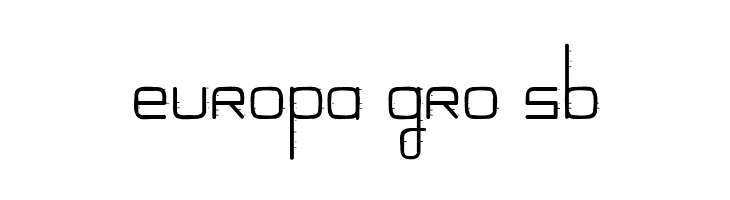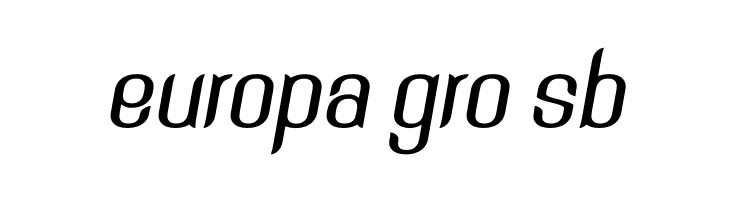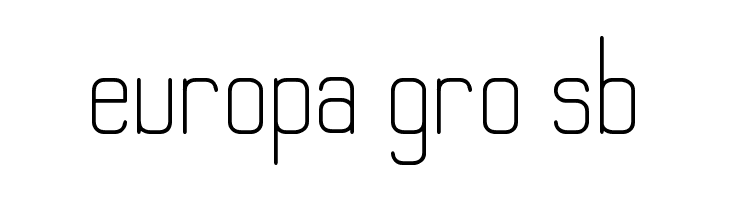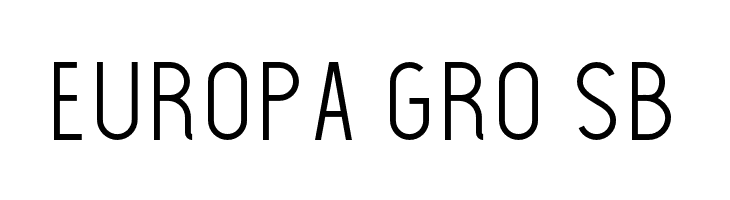
( Pisto Casero - Gilberto Moya Perona - www.pistocasero.com )
A geometric, minimalist font with a wireframe design and uniform line weight.
( Qkila - Quentin Aquila - www.creativefabrica.com/designer/qkila/ )
A futuristic, geometric font with consistent stroke width and uniform character heights.
( Rachel San )
A modern sans-serif font with semi-bold weight and italic style.
( Sengkeo Vangxiengvue - www.facebook.com/vangxiengvue )
A modern, medium-weight italic font with a sleek, condensed design.
( Shara Weber - www.sharasfonts.com )
A sleek, modern sans-serif font with bold weight and clean lines.
( Southype - Rodrigo Gonzalez - www.southype.com )
A modern, geometric sans-serif font with consistent line weights and a minimalist design.
( Studio Dot by dot - Sjoerd Kulsdom - www.dotbydot.nl/fonts )
A modern, ultra-lightweight font with a minimalistic and geometric design.
( Studio Dot by dot - Sjoerd Kulsdom - www.dotbydot.nl/fonts )
A modern, decorative font with semi-bold weight and looped terminals.
( Sven Pels - www.svenpels.com )
A clean, modern sans-serif font with a geometric structure and consistent stroke weight.
( Thor Christopher Arisland - www.tcarisland.com )
A modern, geometric font with tall, narrow characters and consistent stroke weight.